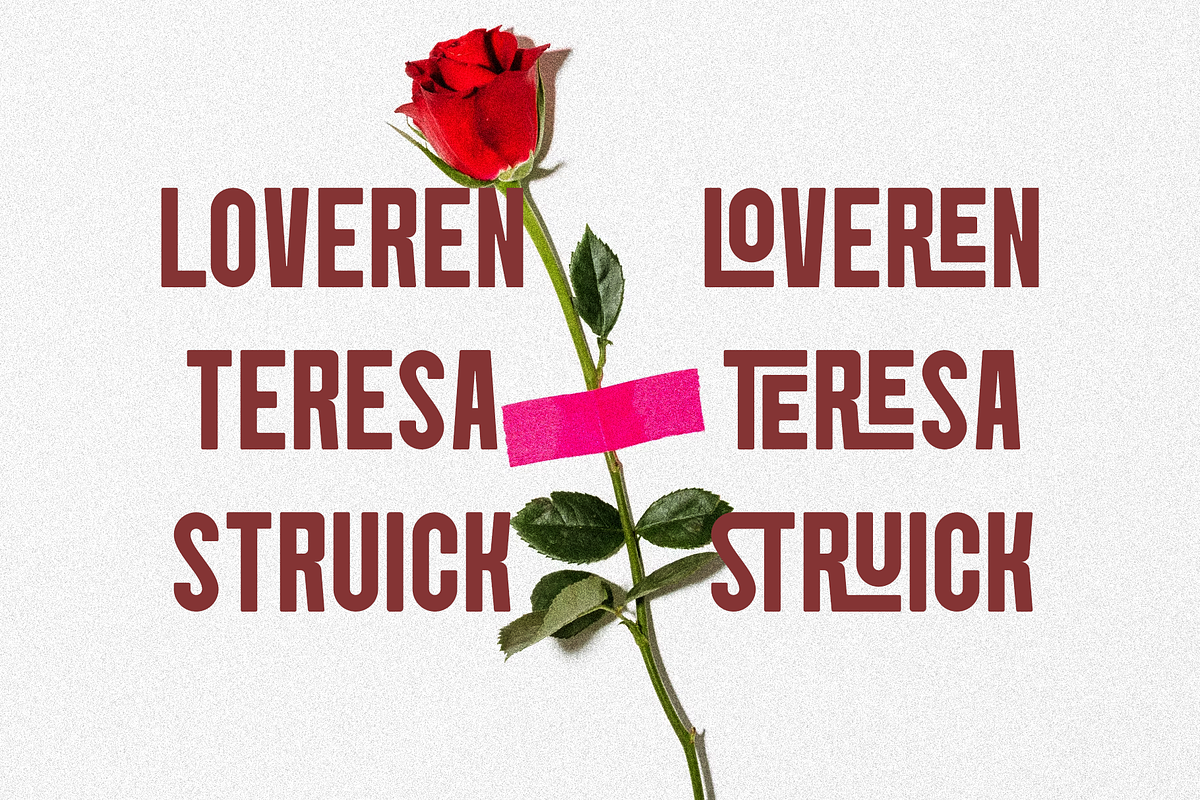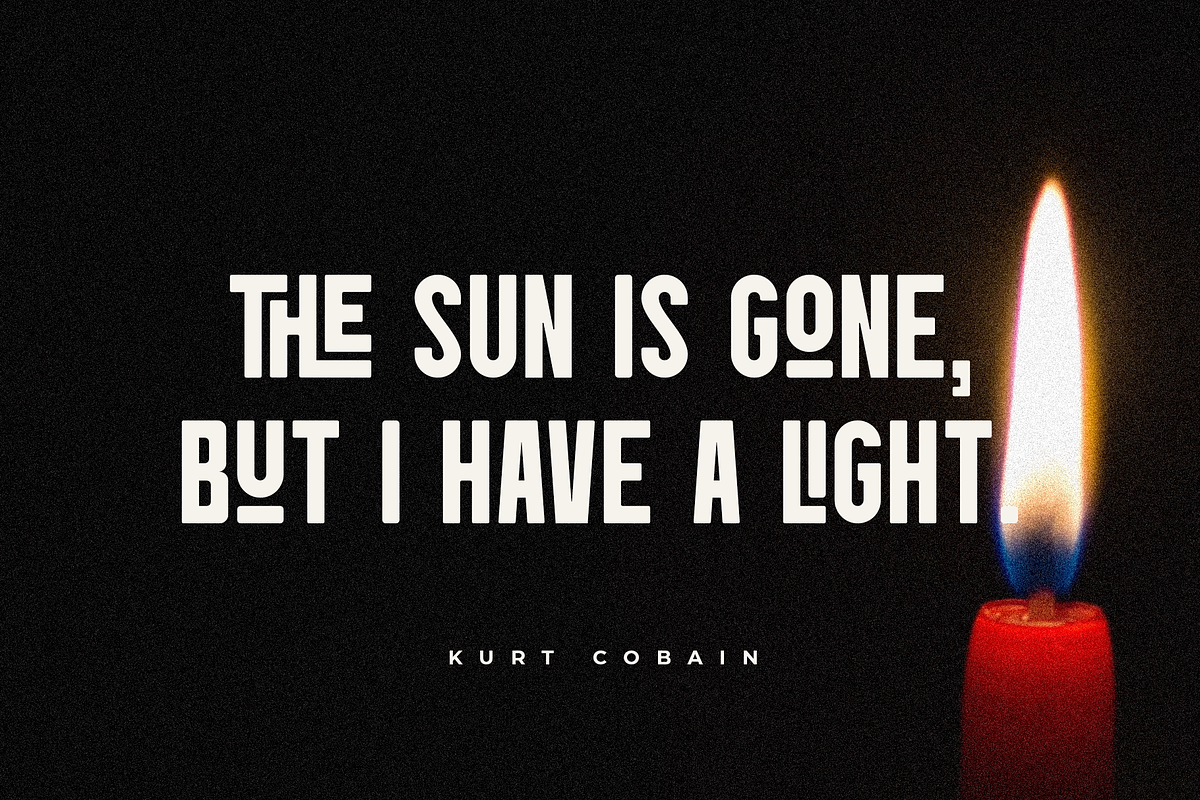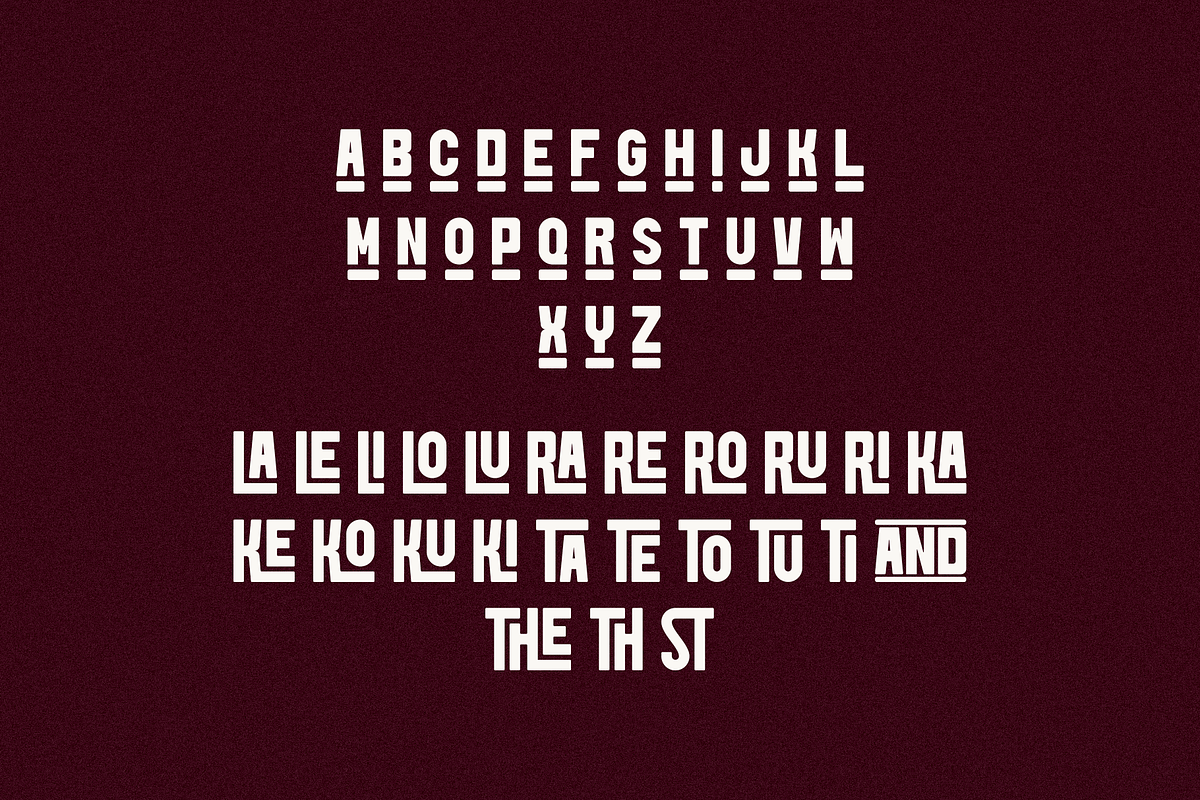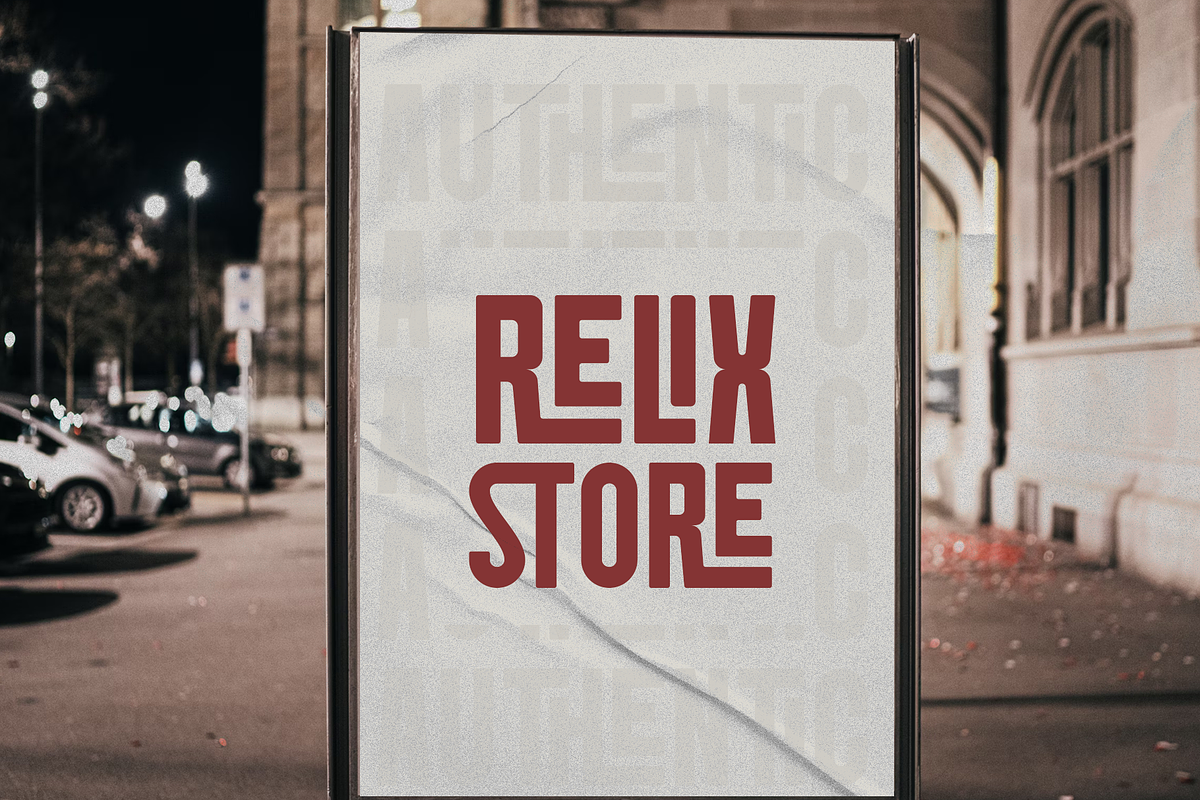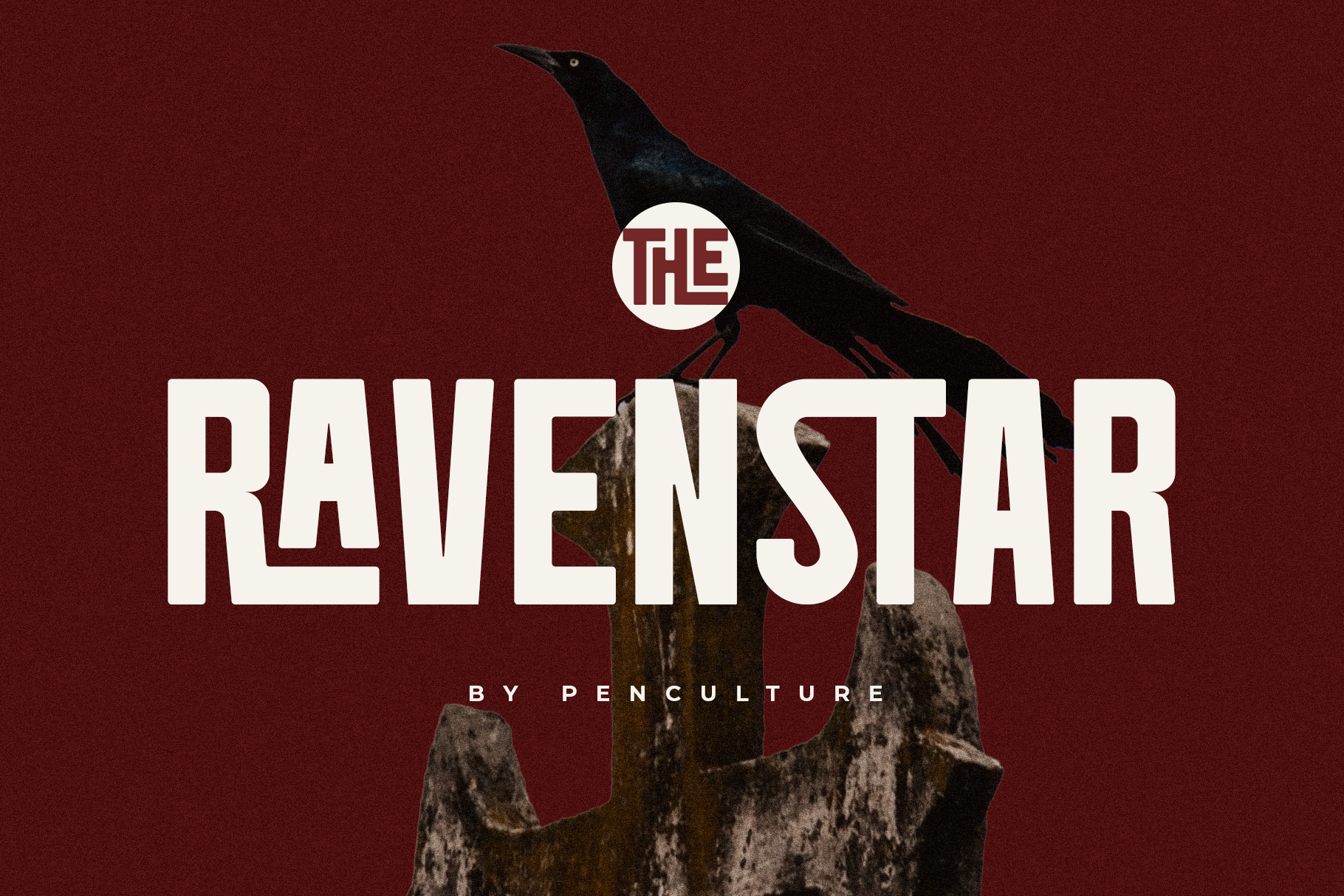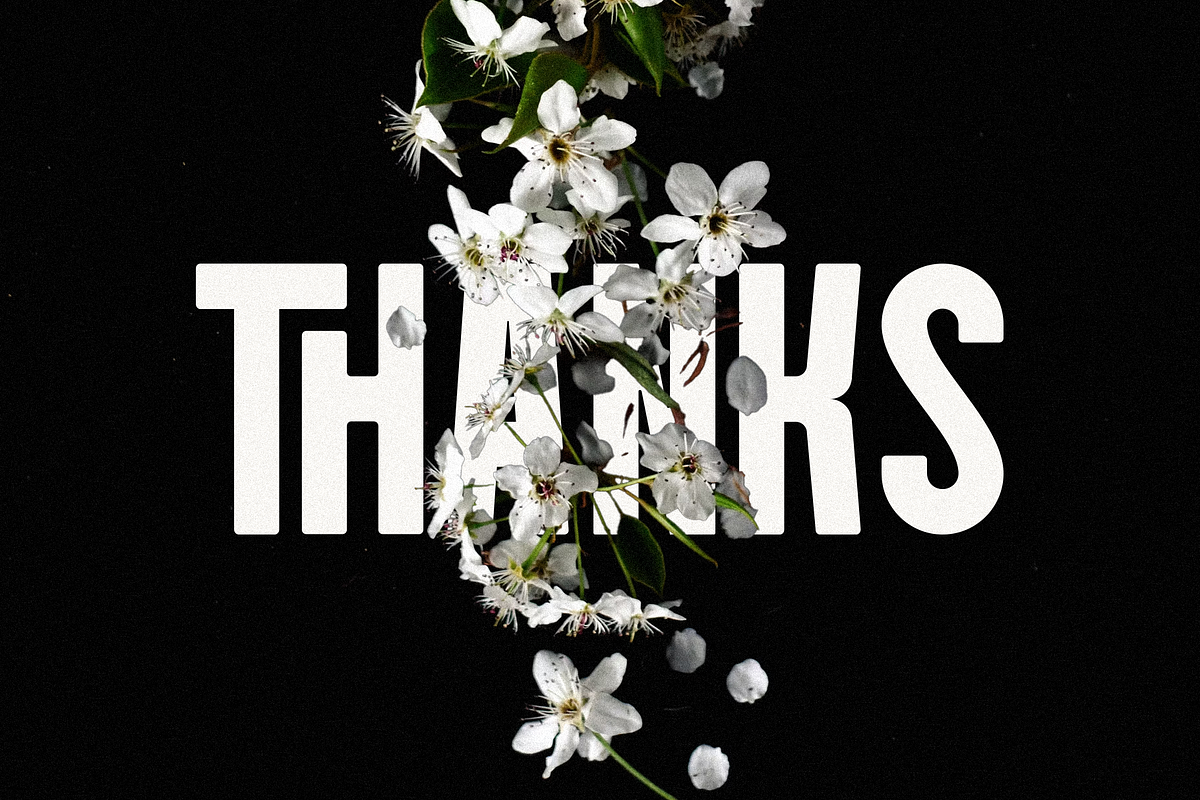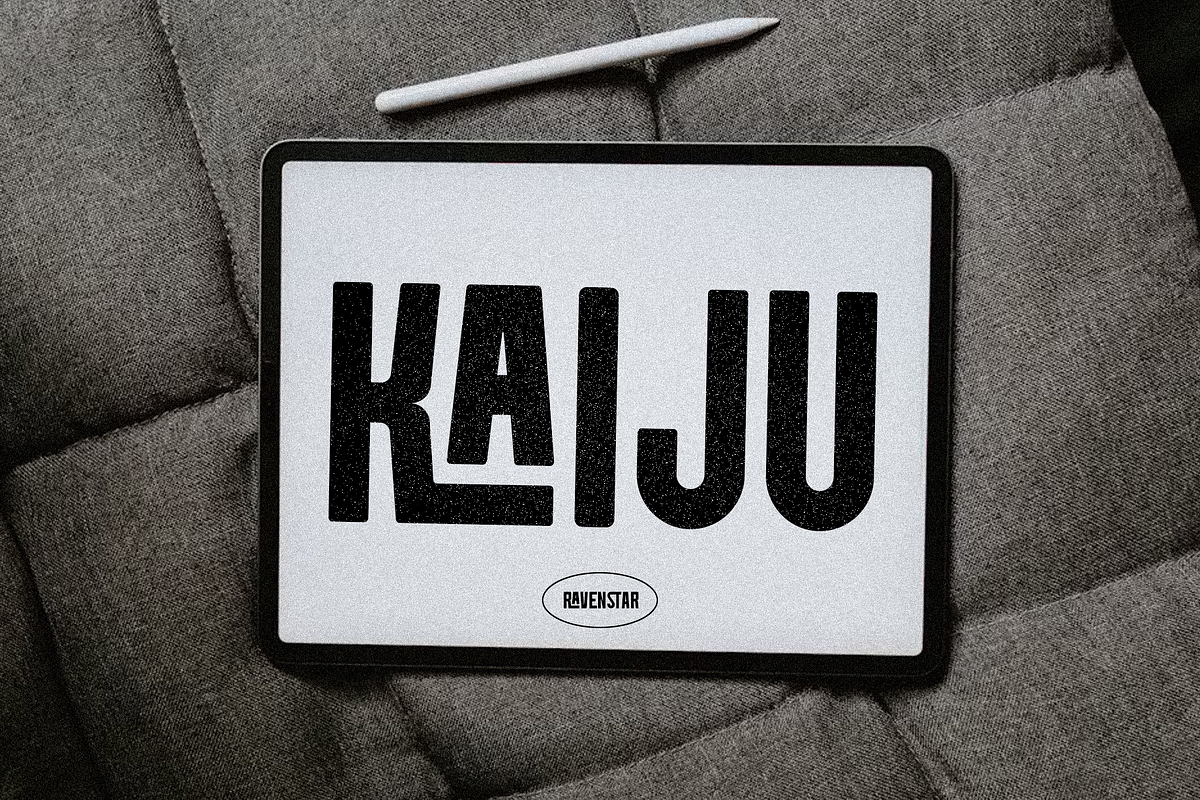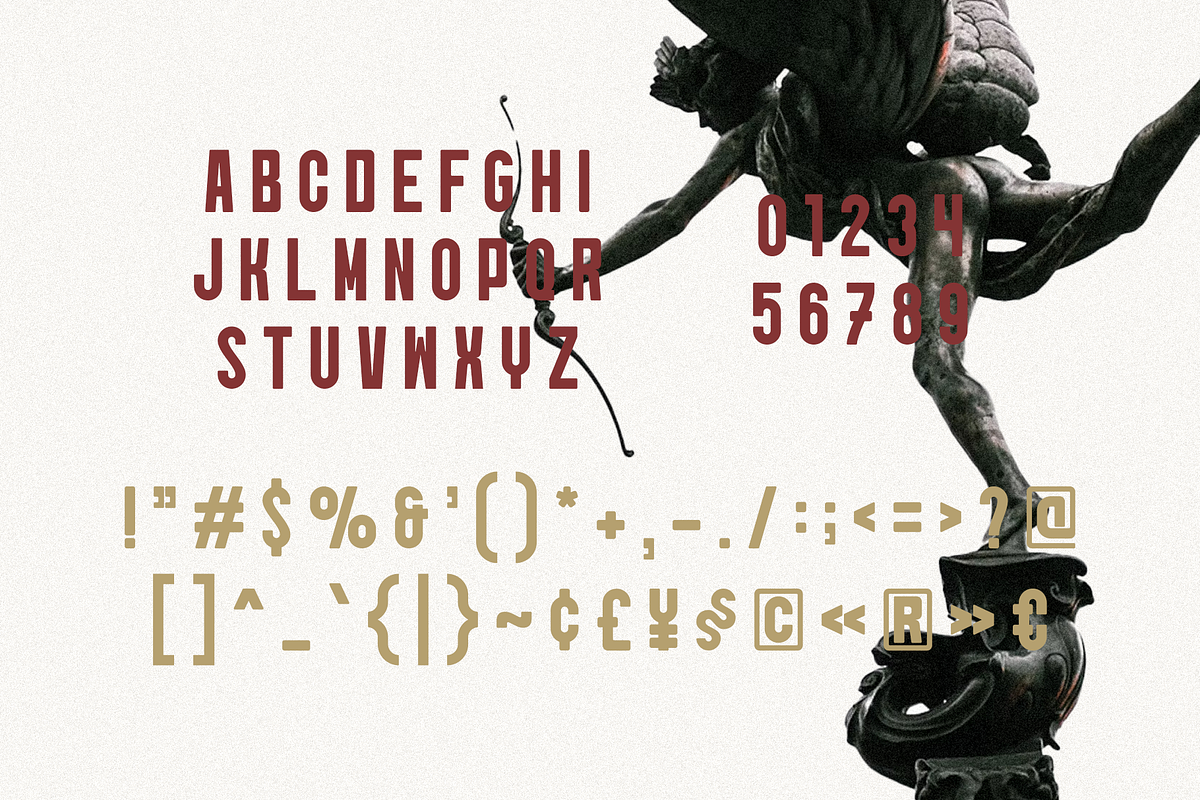
Ravenstar Font
Ravenstar is a bold and striking display font designed to make a powerful impact. With its modern, clean lines and awesome ligatures, Ravenstar adds personality and flair to any design.
Perfect for headlines, branding, posters, and logos, this font combines boldness with creativity, making it ideal for projects that need to stand out. Whether you’re creating minimalistic designs or eye-catching statements, Ravenstar is the perfect choice for a bold, contemporary look.